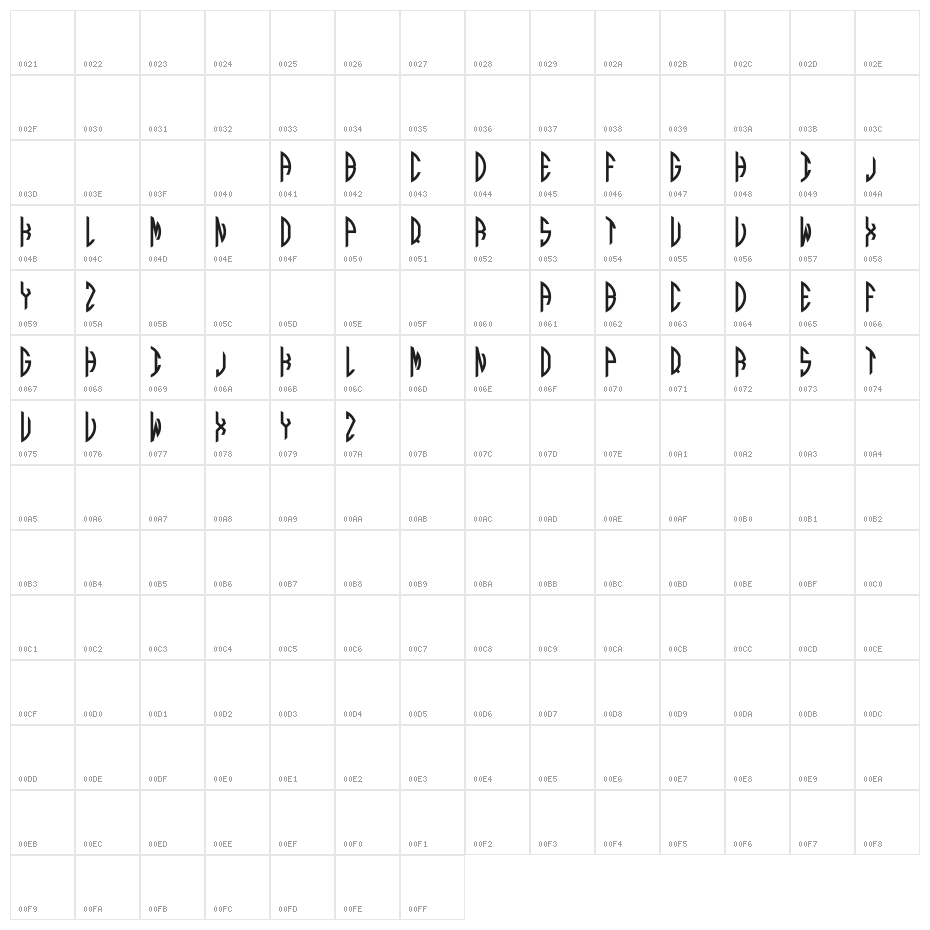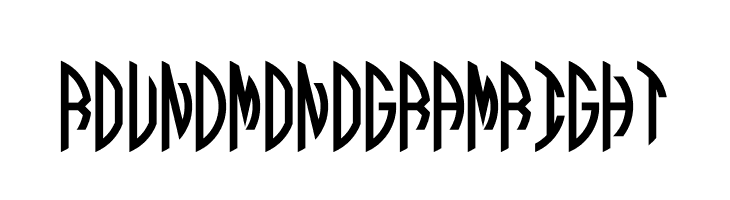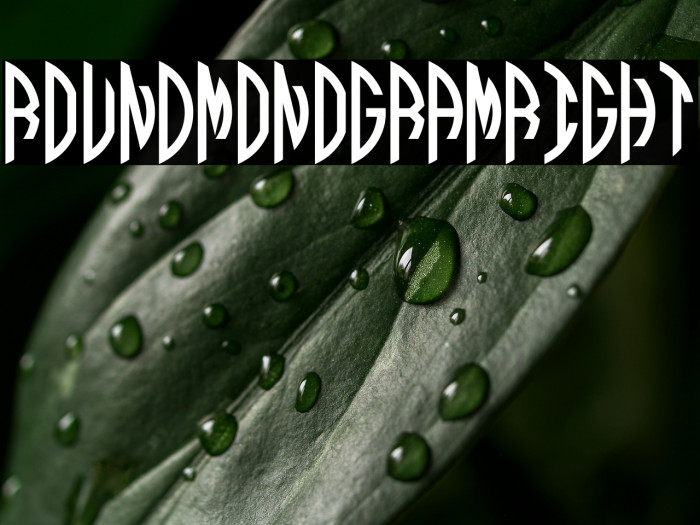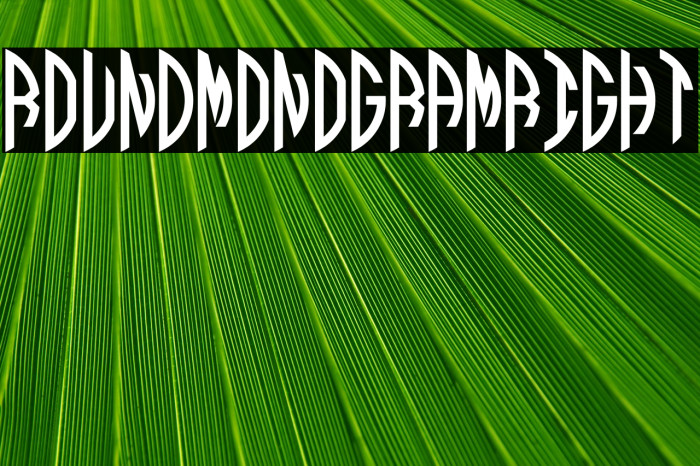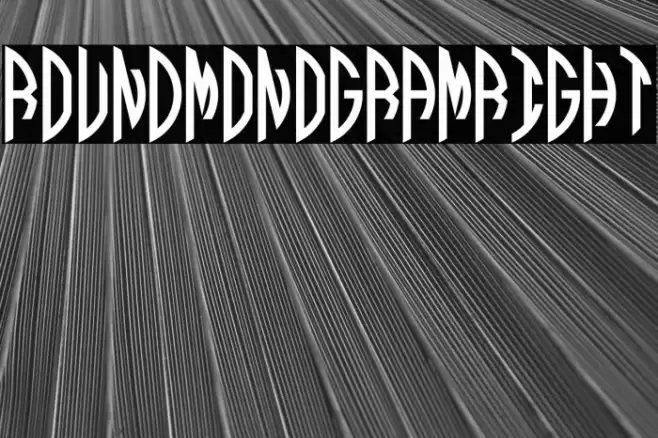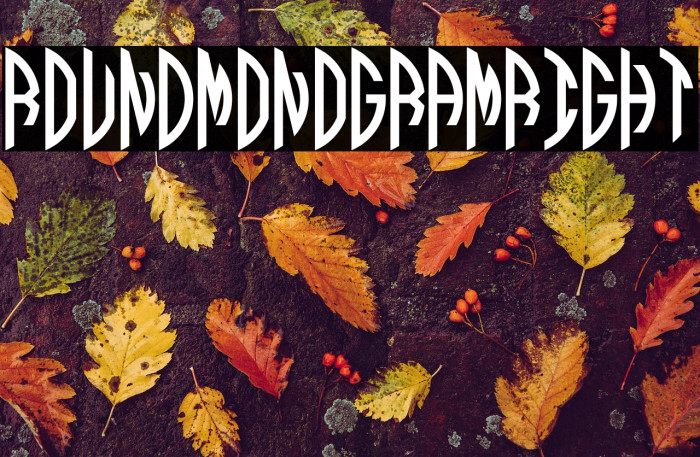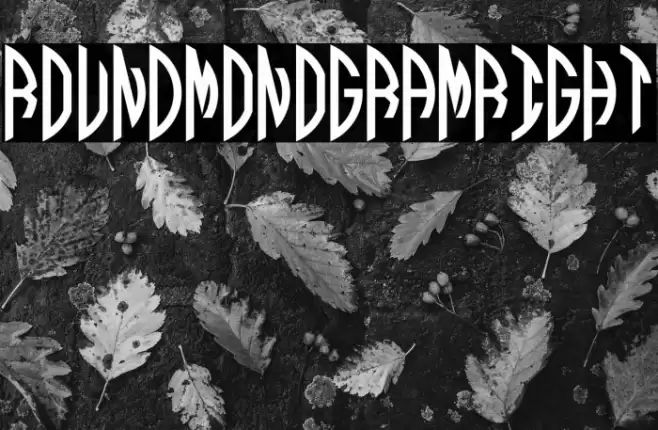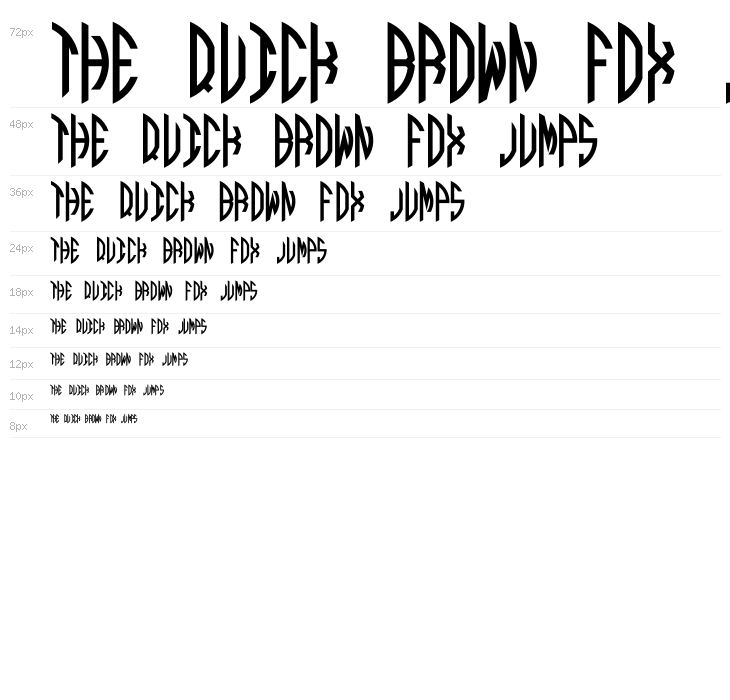
Round_Monogram_Right Font
| Категория | Thick |
| Область применения | Logos, Headlines, Posters |
| Рекомендуемые проекты | Ideal for logo design, branding, posters, and any project requiring a modern, eye-catching typeface. |